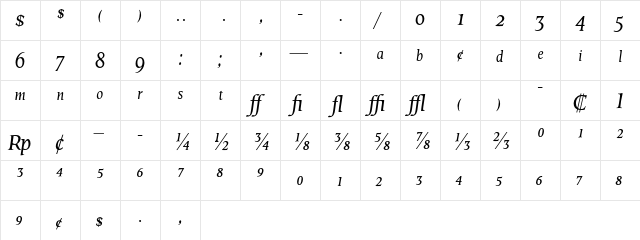
Octavian MT Italic Expert Font Preview
Octavian MT Italic Expert
Design Context for Octavian MT Typeface
Octavian MT offers clean, dependable letterforms without strong stylistic allegiance, making it a practical choice for designers who need flexibility. Its italic angle brings a sense of urgency and motion to the letterforms.
Pro Tip: Use Octavian MT for emphasis, pull quotes, and subheadings where its slanted energy can add rhythm to the layout.